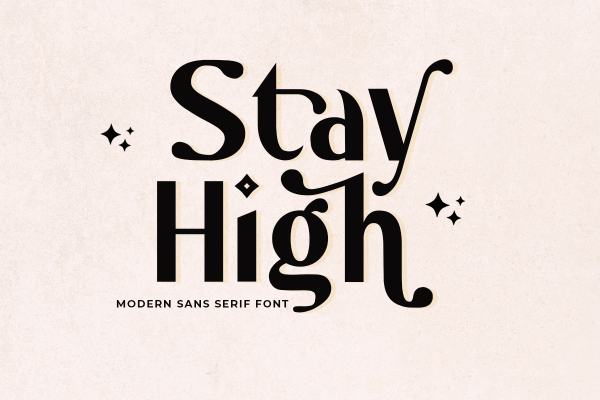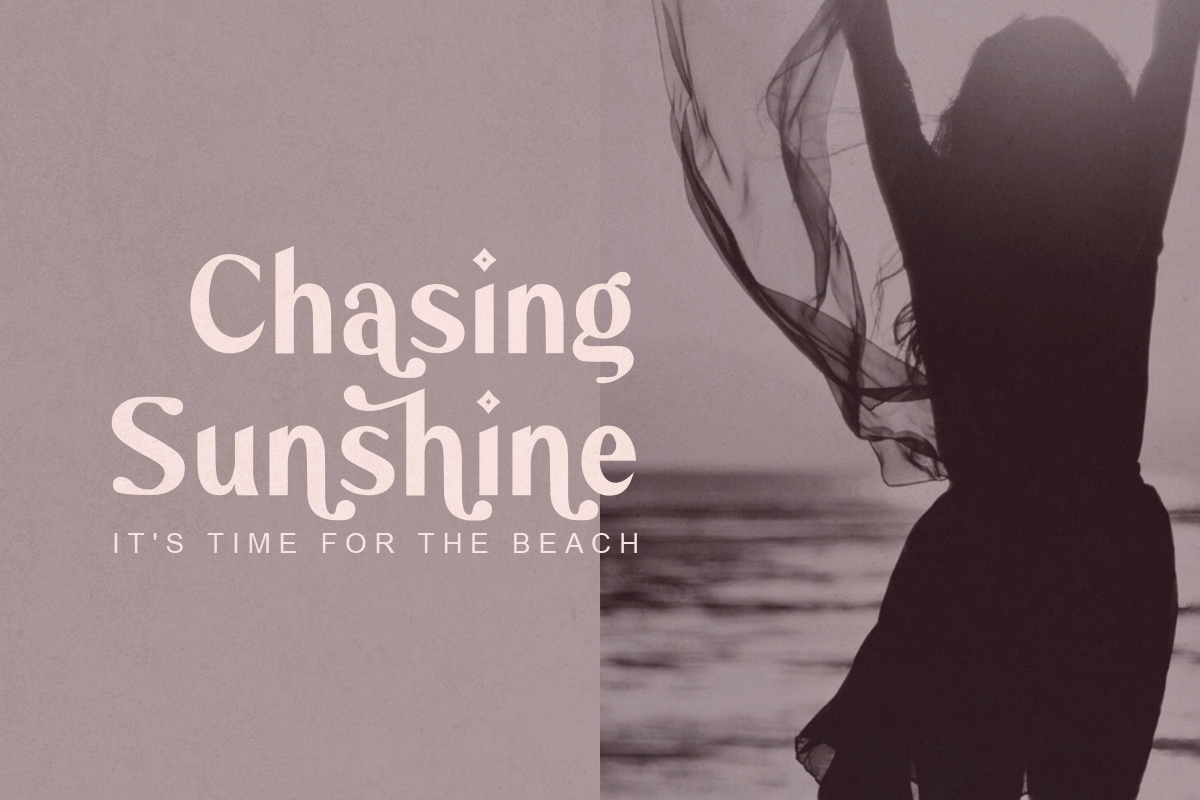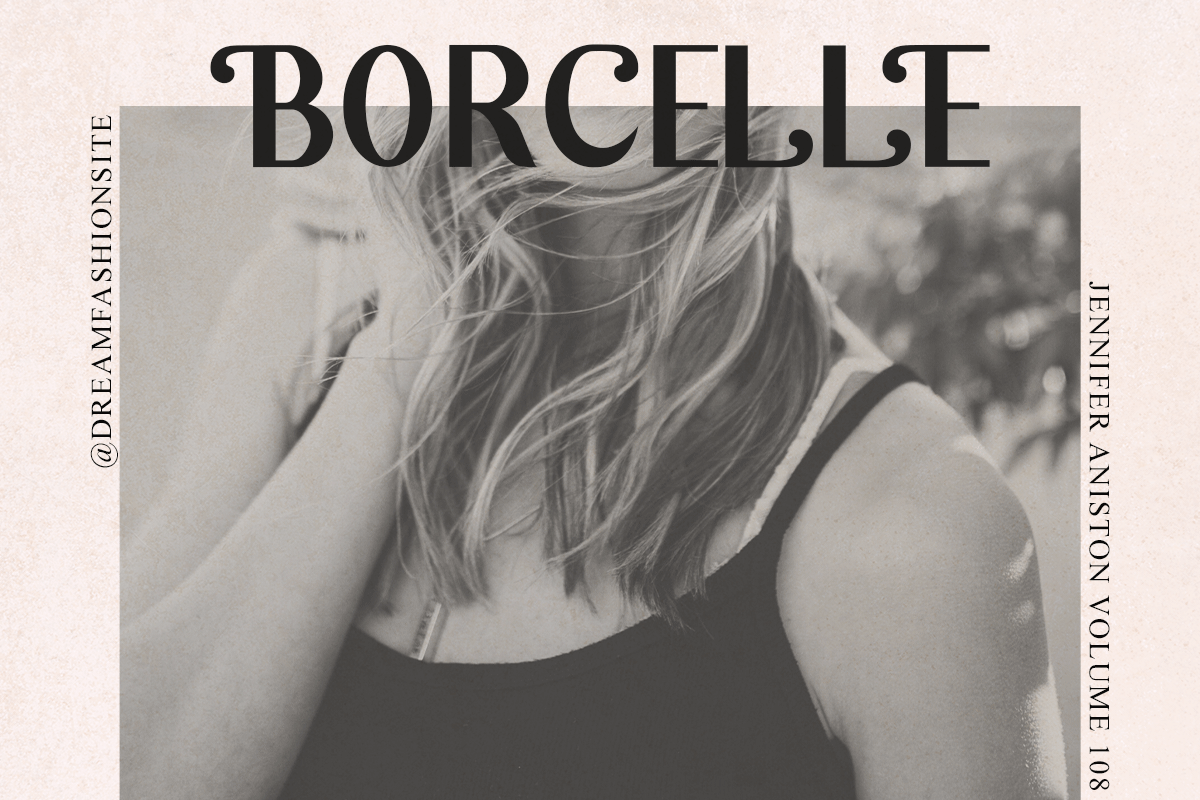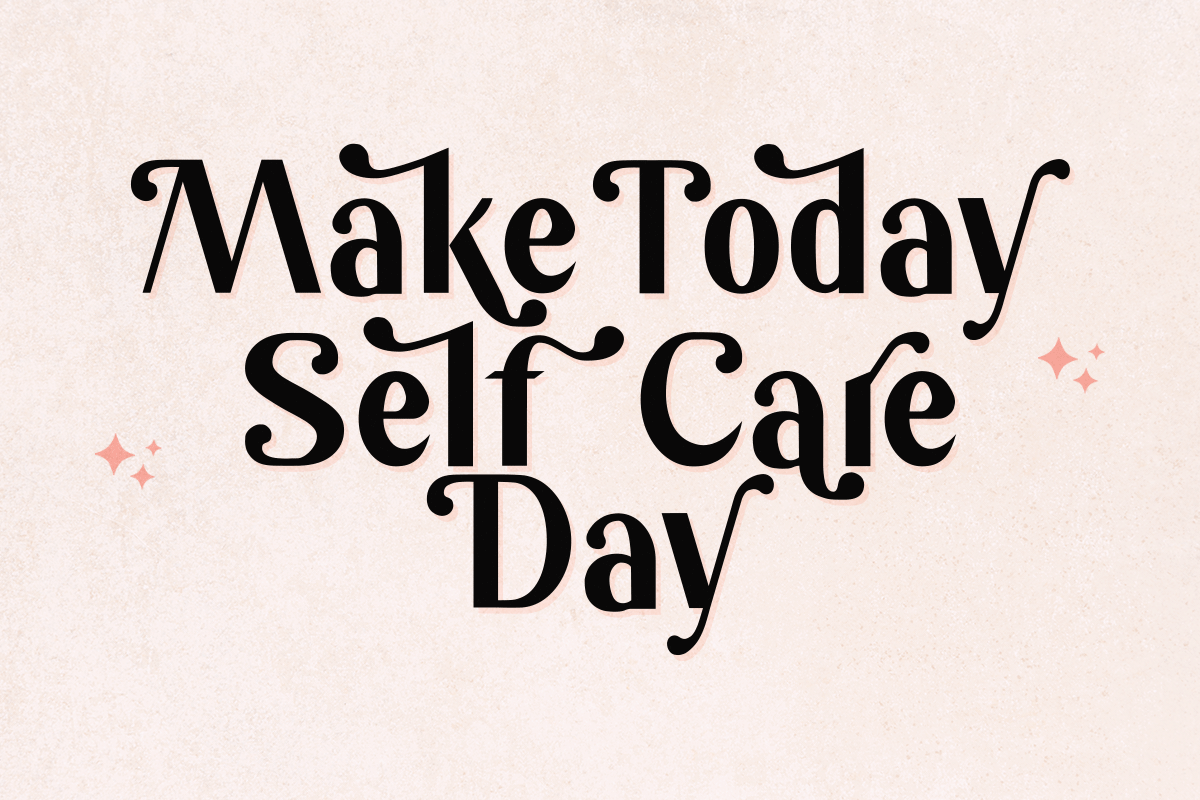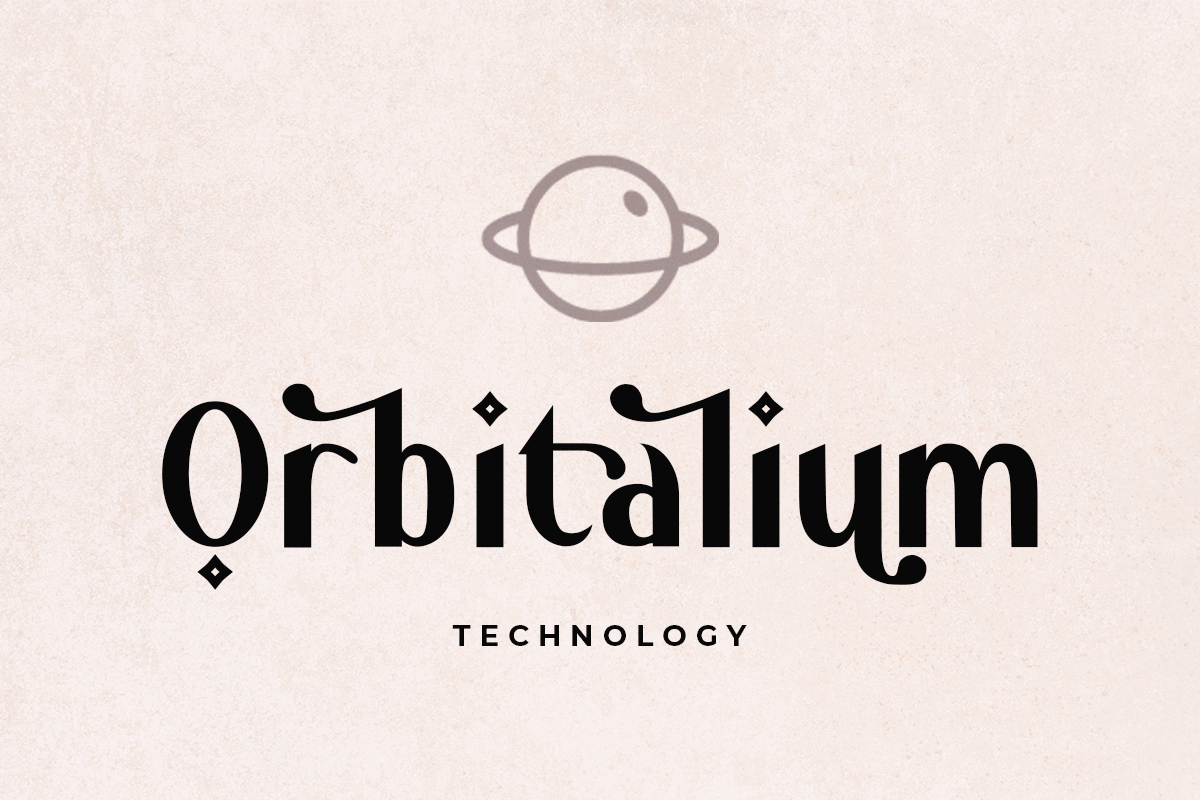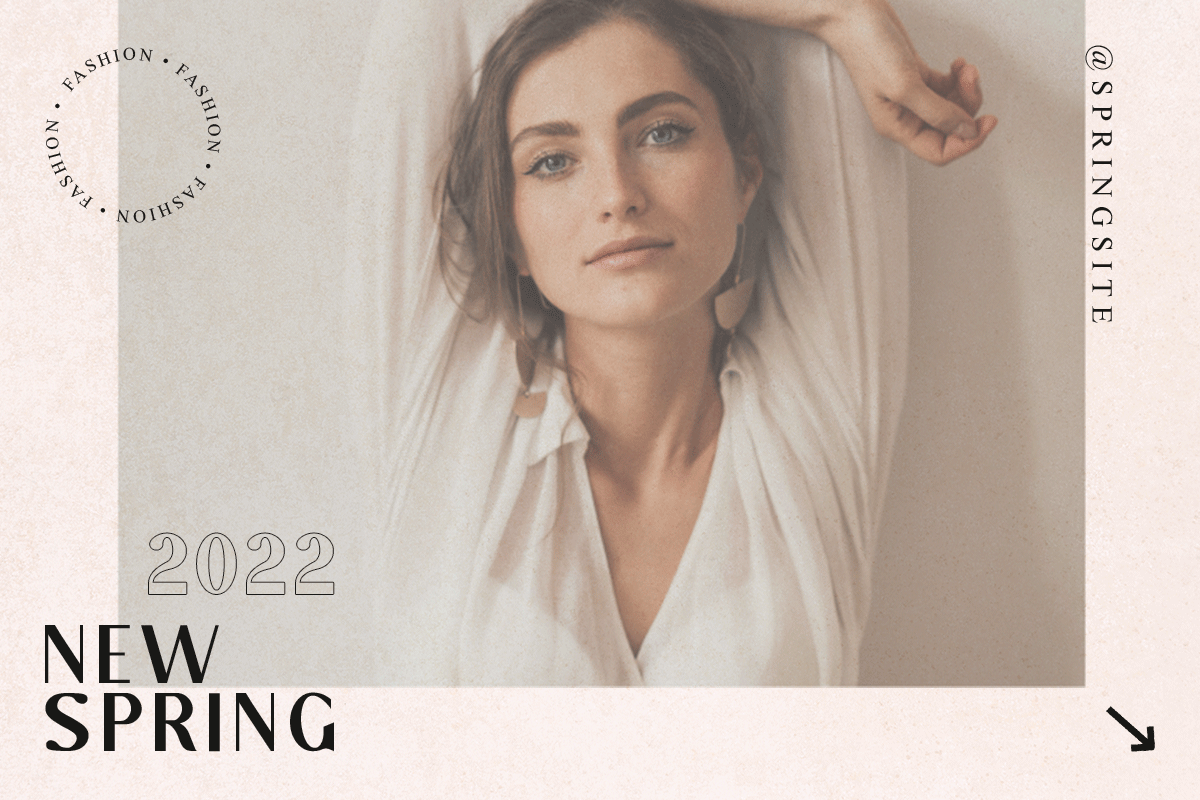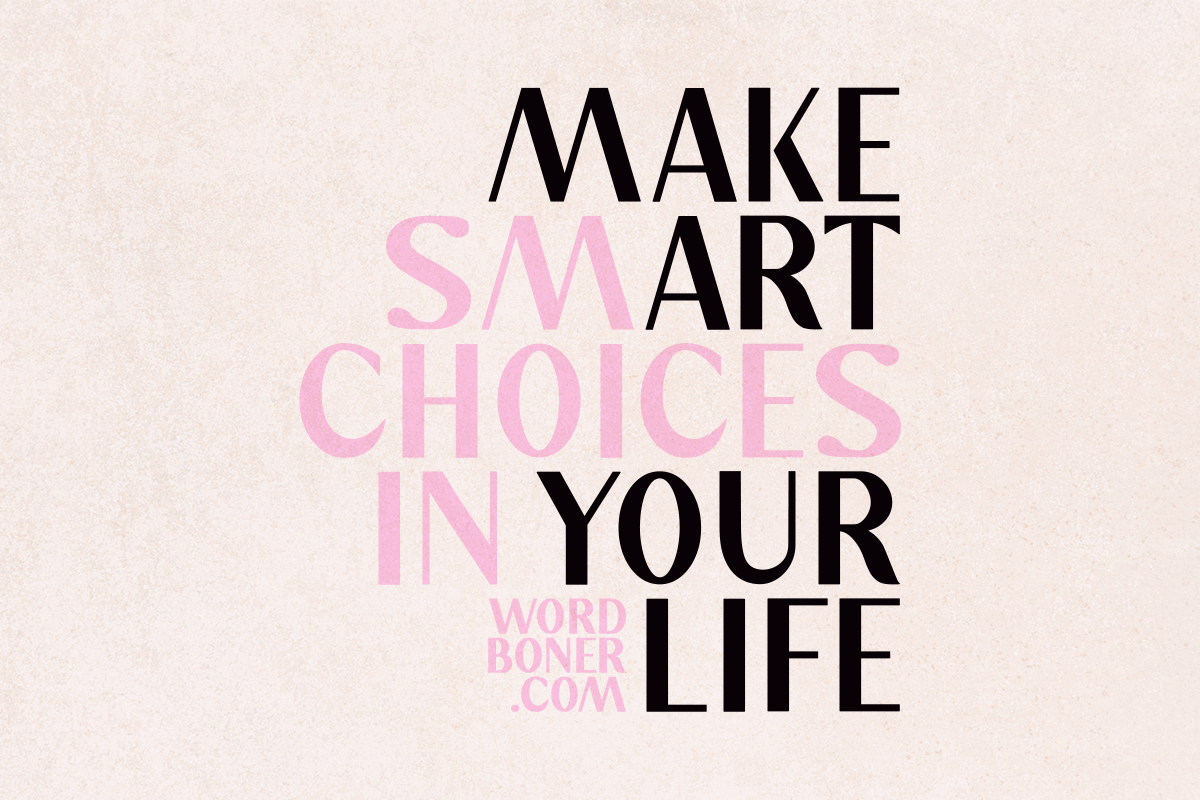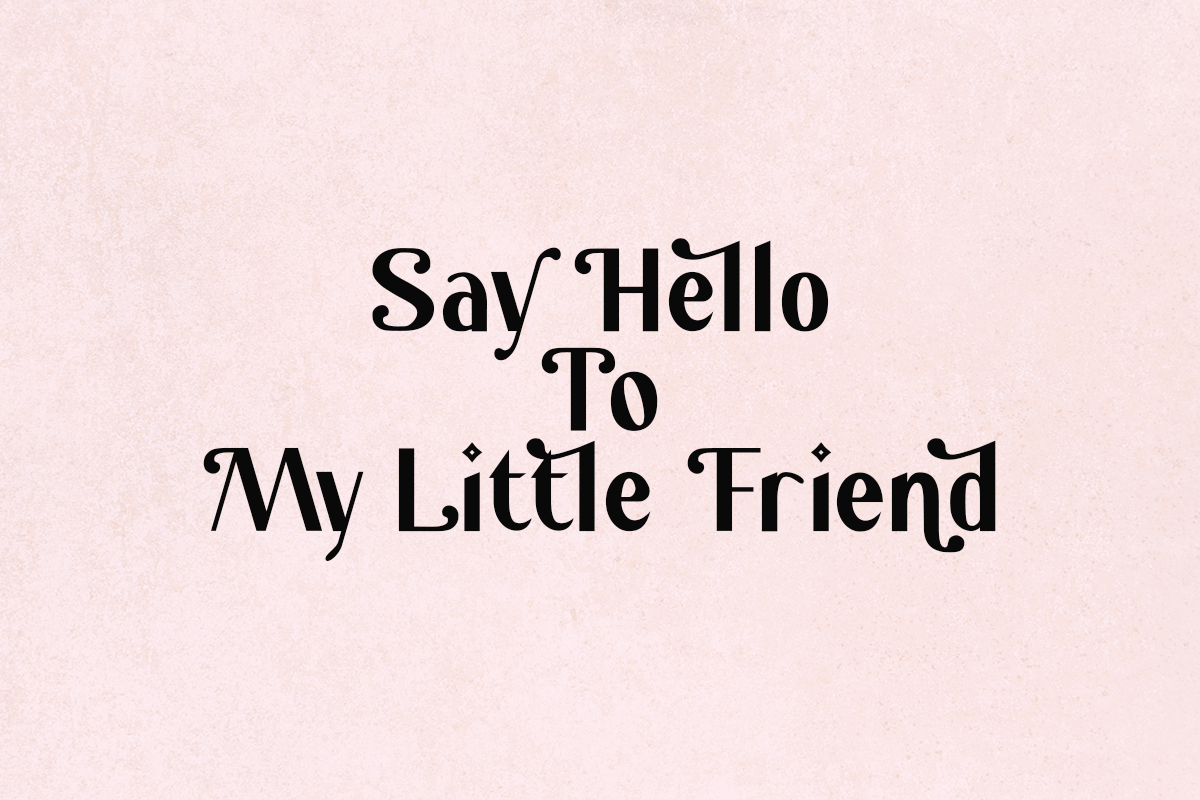
Stay High Font Stay High Modern Sans Serif Font is created to present a simple and elegant impression to anyone who sees us. This is in line with the character of the letters which are very clean without unnecessary knick-knacks in each letter. Stay High Modern Sans Serif Font stands tall and exudes a confident vibe. People who read various texts using this font do not need to bother to be able to read and understand, which means this is a legible font. As the name implies, Stay High Modern Sans Serif Font is perfect for use in various formal events, such as weddings and multiple parties. This font is modern fonts and elegant fonts. It can be used for fashion branding, business cards, book covers, and magazine covers. This font can be printed in small or large sizes and still looks great up close or afar. Not only that, this type of font can be used on the web. It can be used as a film font, in the intro and outro of the film. This font is also suitable for use as a children's fairy tale title font that has a fantasy theme. For those who are simple and don't like the look of busy designs on their clothes, they will choose clothes with typography in them. Bold and clean, the Gloria Elegant Sans Serif font can look great when used correctly. Based on the description of using Stay High Modern Sans Serif Font, this font can be used as a digital and print font. Our Sans serif fonts collection is compatible for use as Figma fonts, Canva fonts, Freepik Fonts, and Adobe Fonts. They also work as Windows Fonts and Apple Fonts. For your social media needs, you can use and install fonts in our Sans Serif font collection to use as Instagram Fonts, Facebook Fonts, and Twitter Fonts.